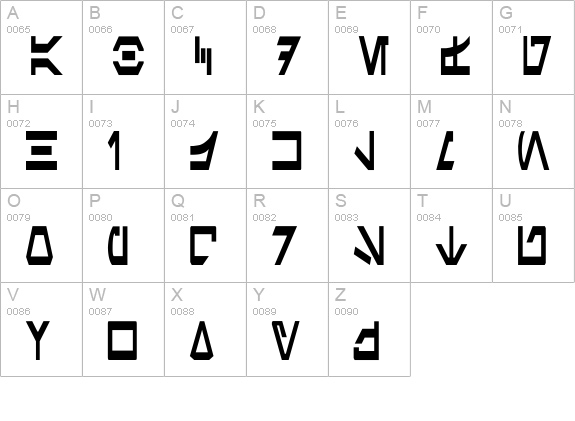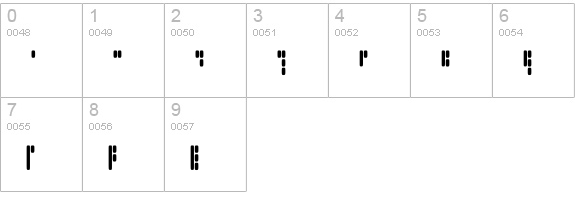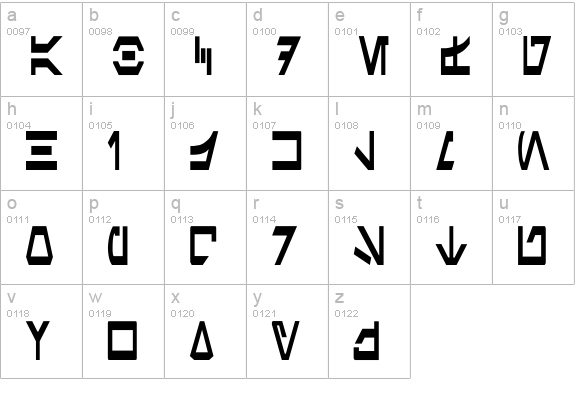
Aurek-Besh Narrow Font Details
Aurek-Besh Narrow is a distinctive, condensed-width variant in the Aurek typeface family \xE2\x80\x94 well suited to design and typography projects.
The Aurek-Besh Narrow font is a sleek and modern typeface that exudes sophistication and elegance. Its refined lines and slender design make it perfect for adding a touch of class to any project. This unique font is versatile and can be used for a variety of design purposes, from branding to editorial layouts. What sets Aurek-Besh Narrow apart is its distinctive style that instantly captures attention. Whether you're creating a logo, poster, or website, this font will make your text stand out with its clean and contemporary look. Best of all, Aurek-Besh Narrow is available for free download at FontsMarket.com. You can easily access this premium font and elevate your designs without breaking the bank. Don't miss out on the opportunity to enhance your projects with this exquisite typeface. Download Aurek-Besh Narrow now and let your creativity shine.